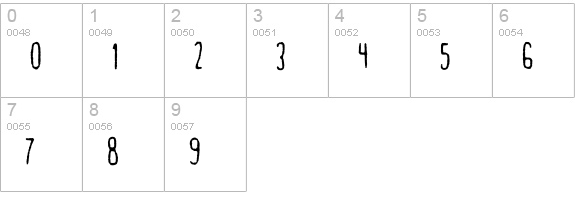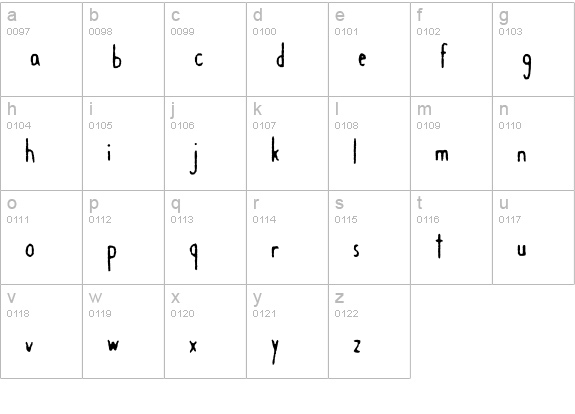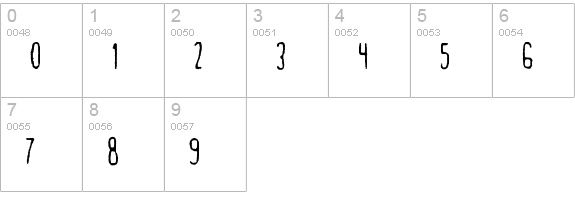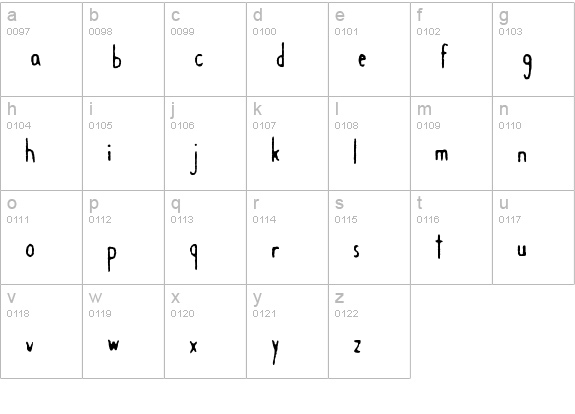
Gastro Intestinal Confluent Font Details
Introducing Gastro Intestinal Confluent font, a versatile and modern typeface designed to make your designs stand out. This font features a unique blend of smooth curves and sharp angles, creating a visually striking look that is perfect for a wide range of projects. With its clean and professional appearance, Gastro Intestinal Confluent font is ideal for use in branding, advertising, packaging, and much more. Whether you're working on a logo design, website layout, or print materials, this font will add a touch of sophistication to your work. Best of all, Gastro Intestinal Confluent font is completely free to download at FontsMarket.com. So why wait? Add this stylish and eye-catching font to your collection today and take your designs to the next level.